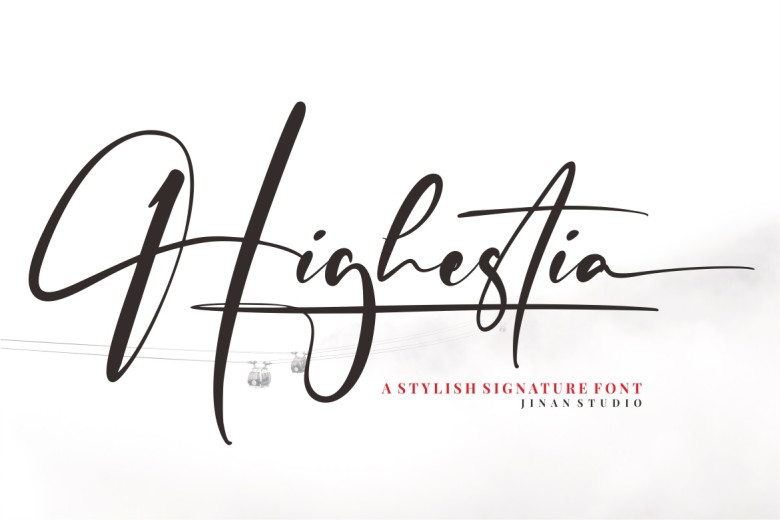
Highestia Font
Highestia is an elegant modern font designed for multiple uses ranging from greeting cards and headlines, to greeting cards and more! PUA encoded, so that all its characters and symbols will be easily accessible!
Highestia Handwritten Font